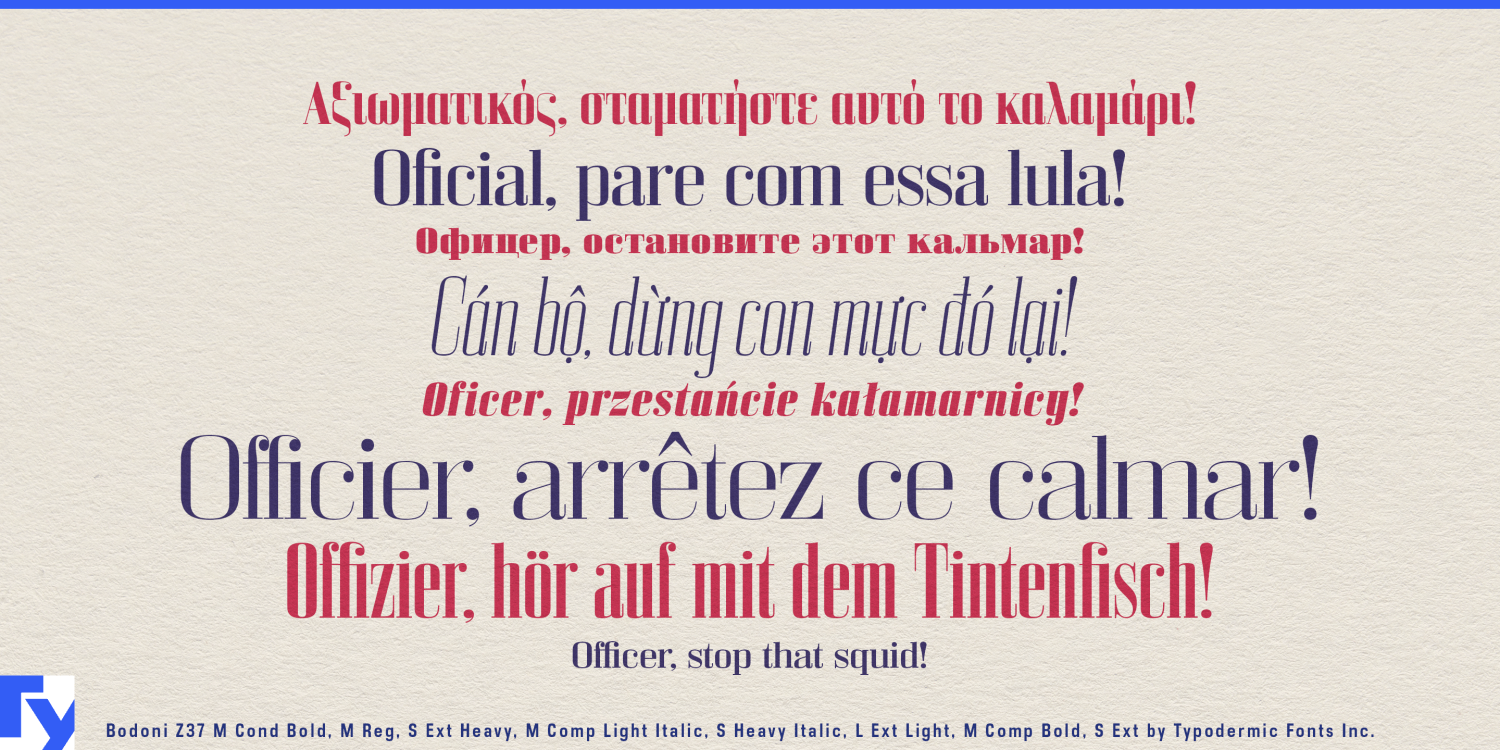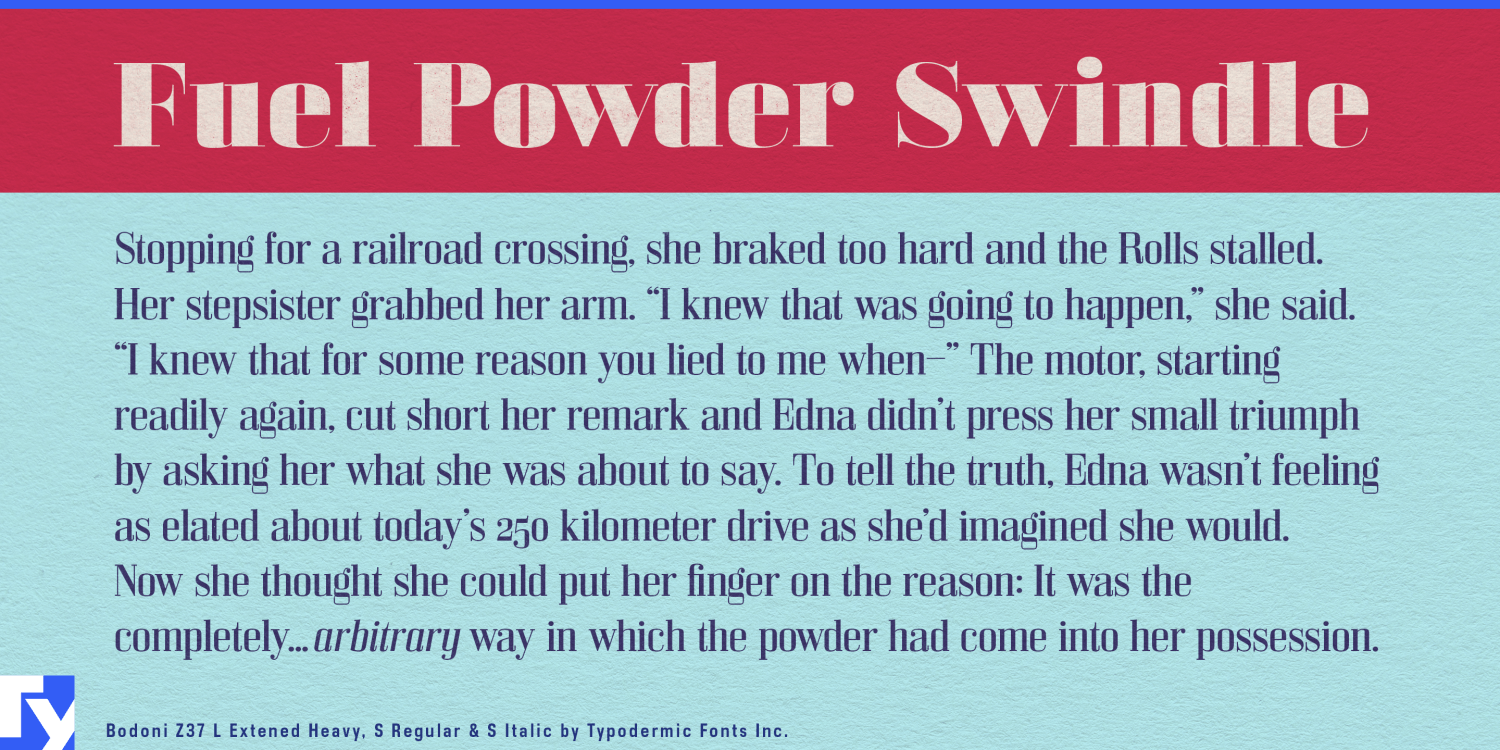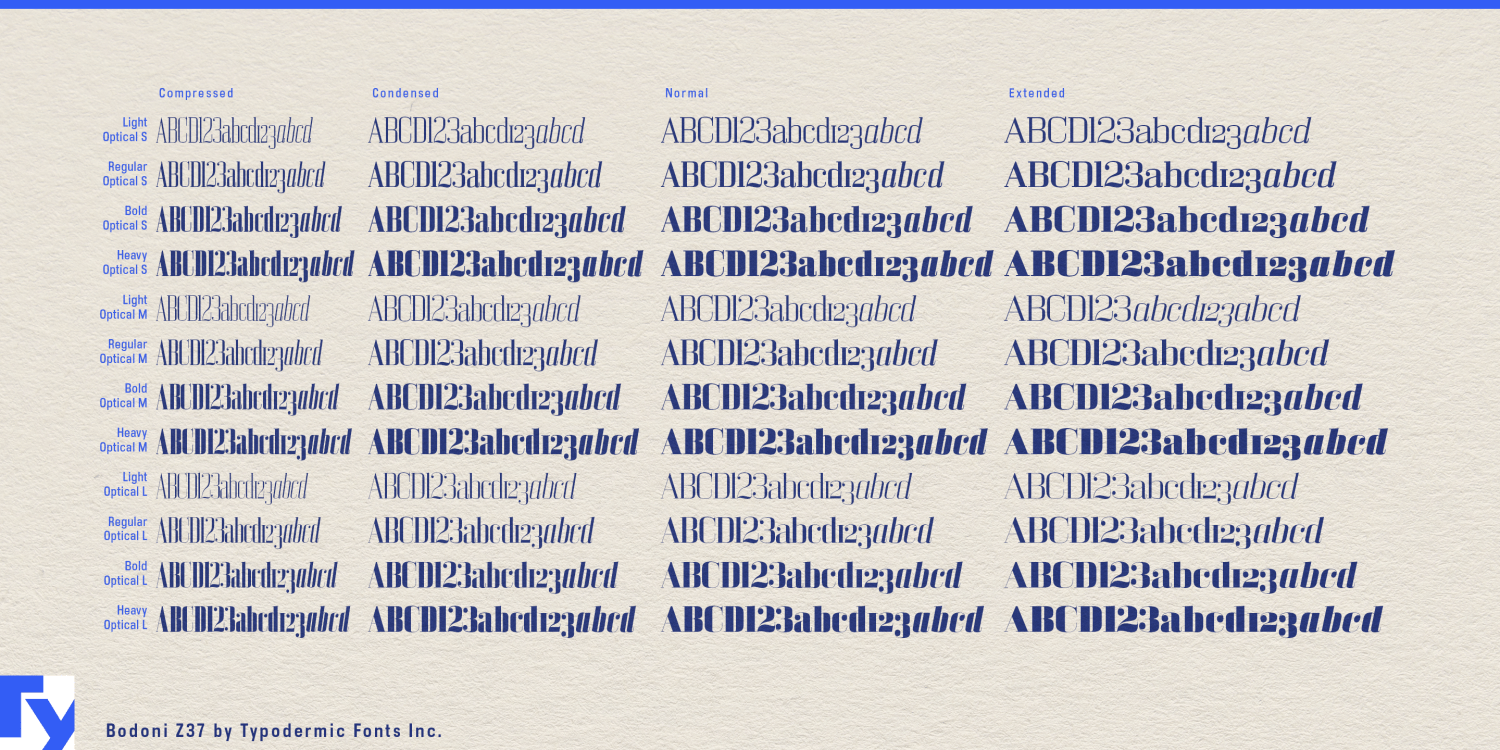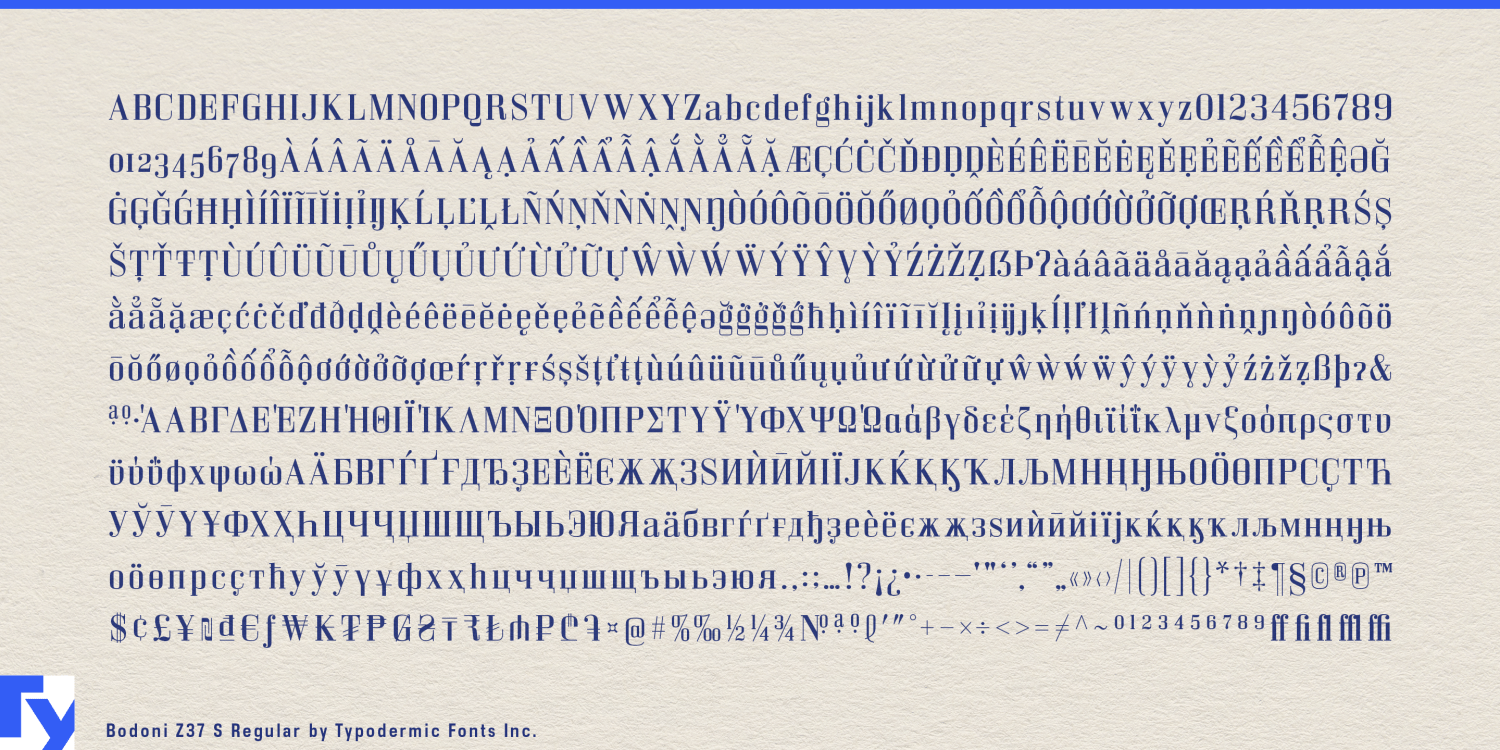
About Bodoni Z37
Step into the future of elegance with Bodoni Z37—a Didone typeface that bridges centuries of typographic tradition with the aesthetics of tomorrow. Designed with the discerning eye of the mid-21st century in mind, this font family is a testament…